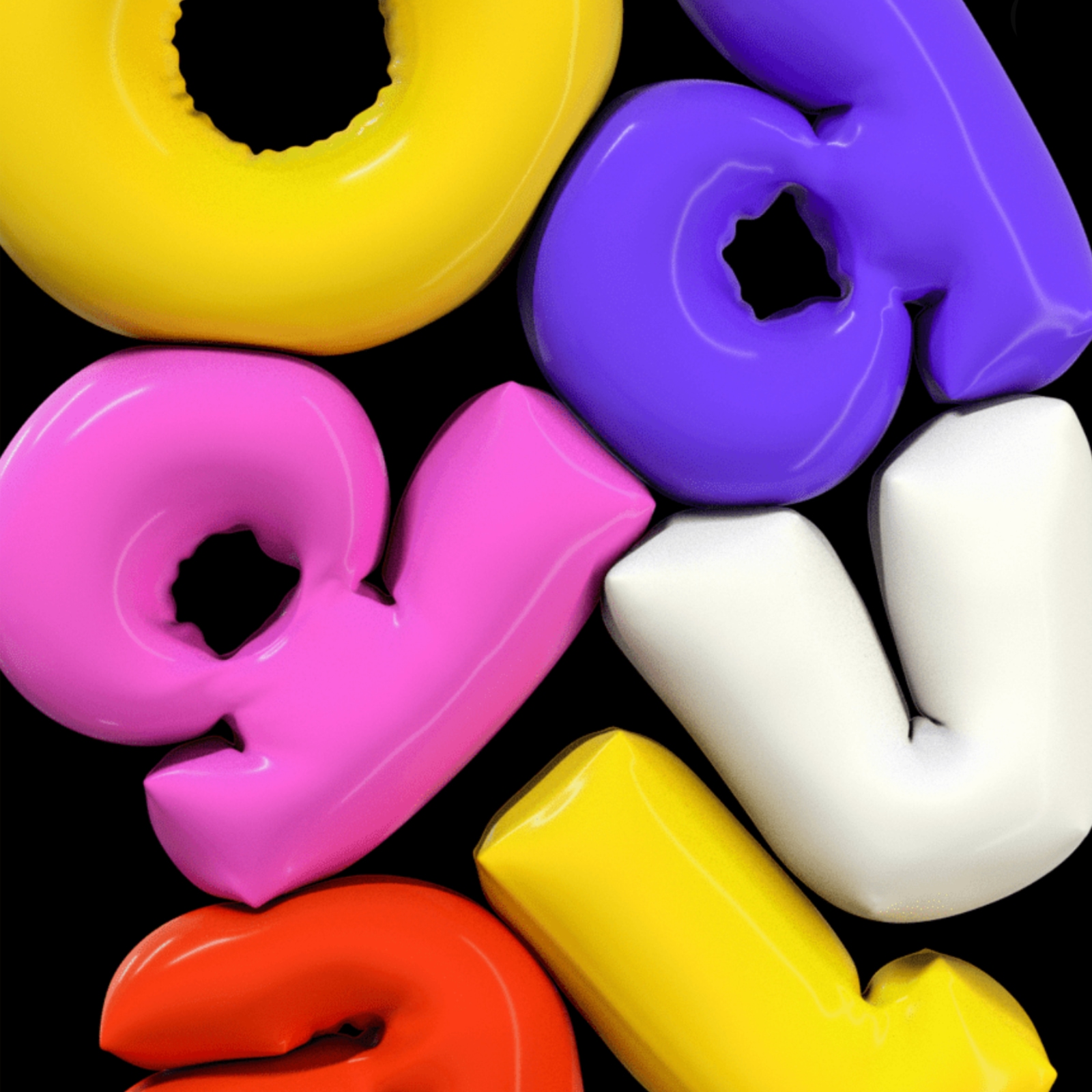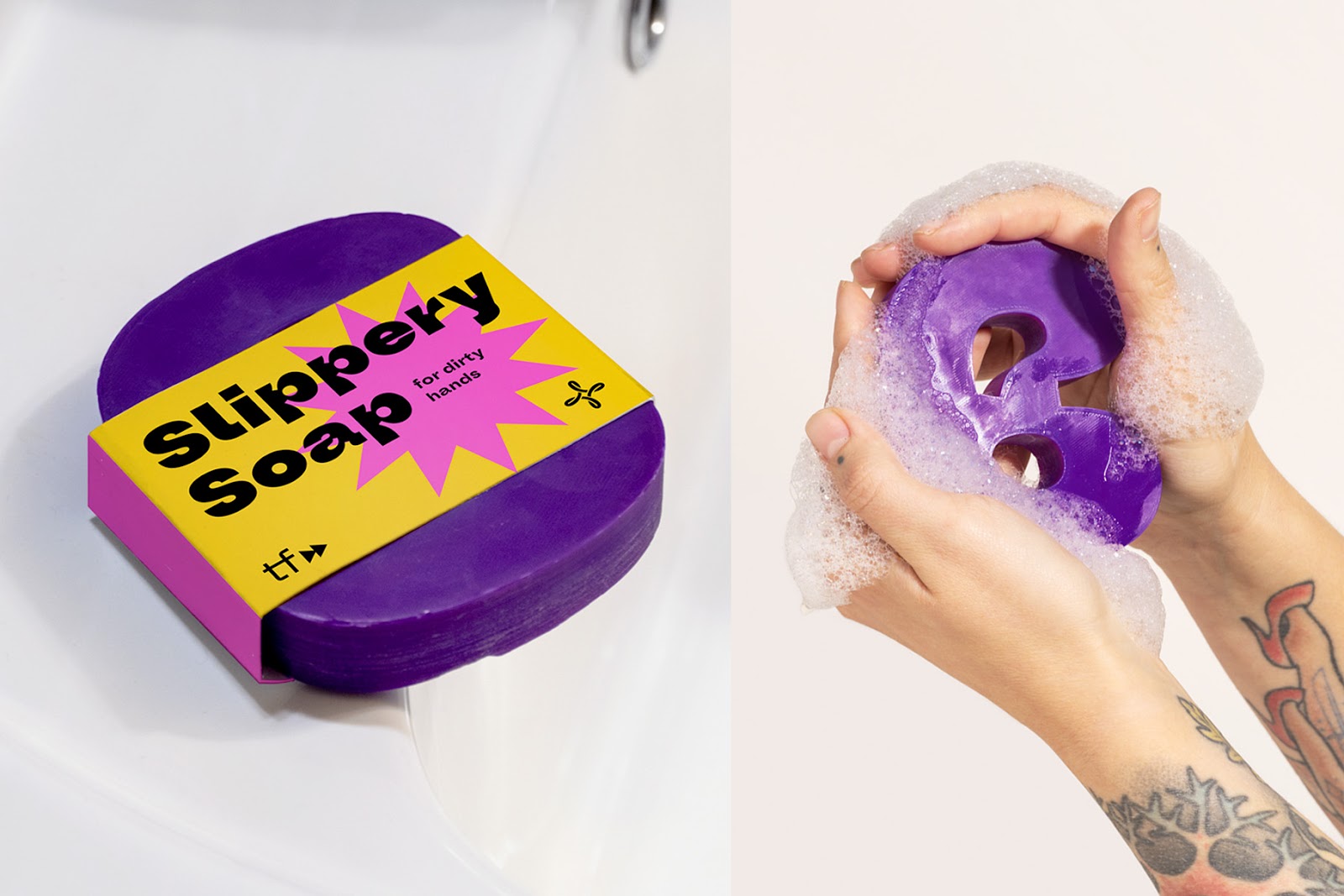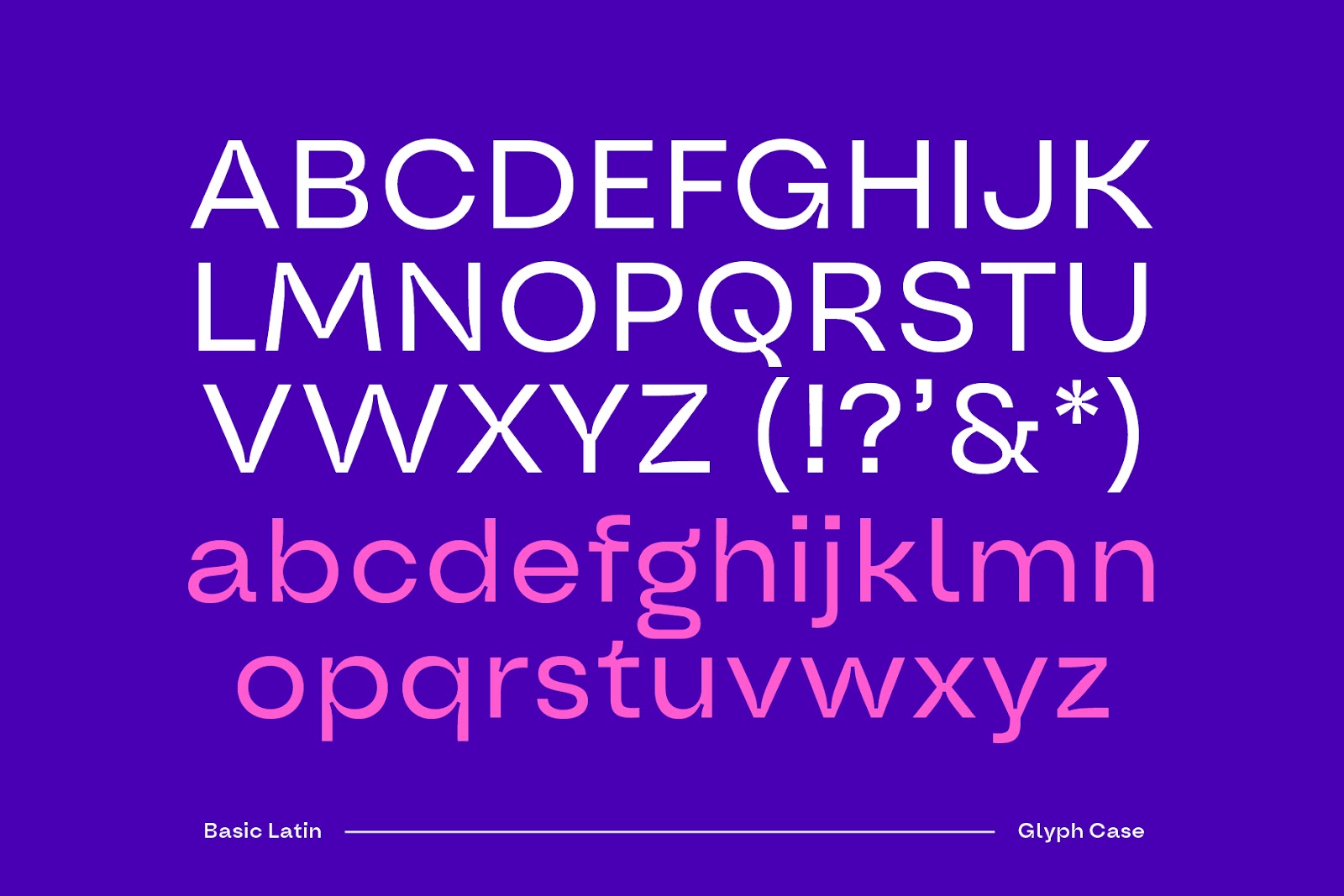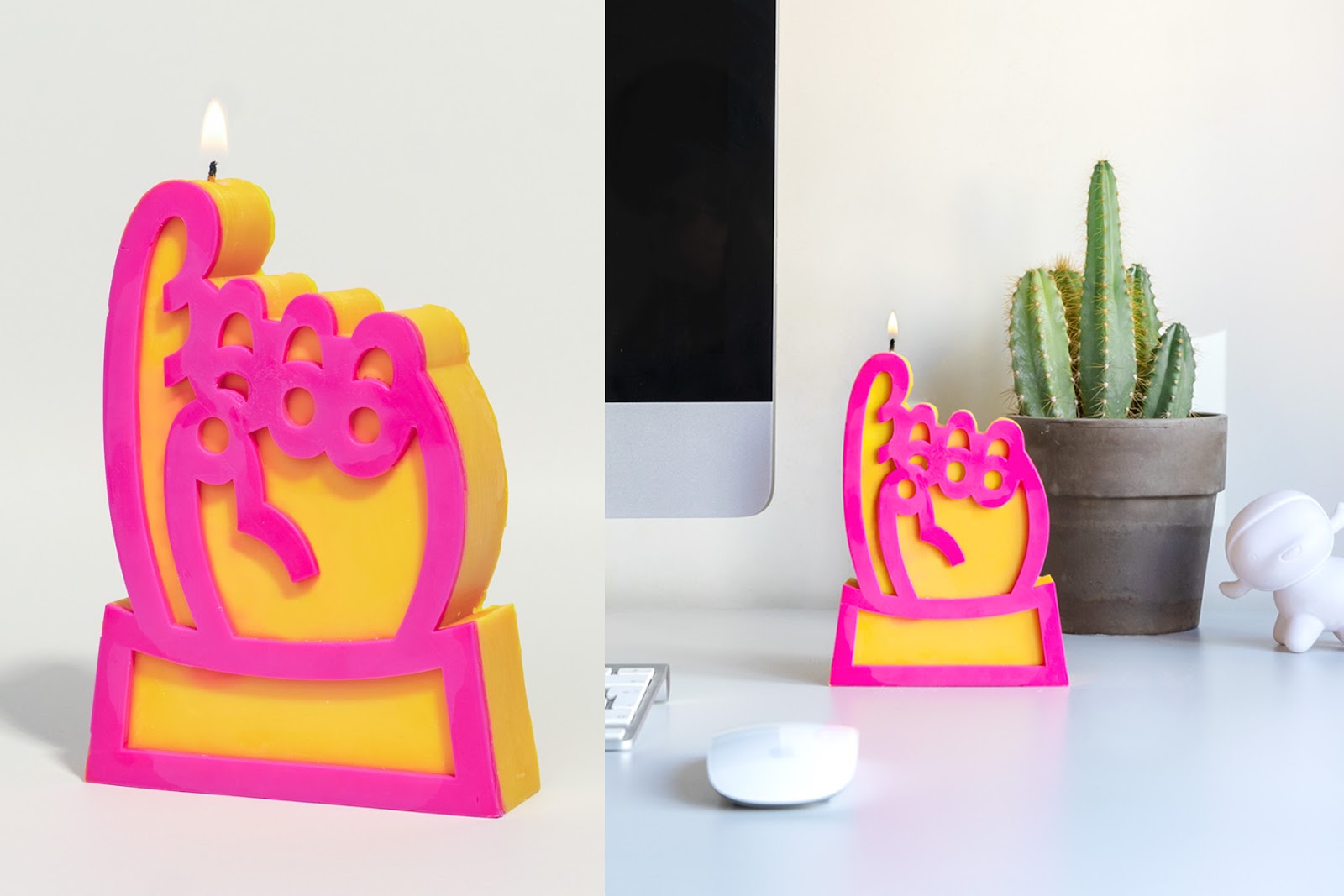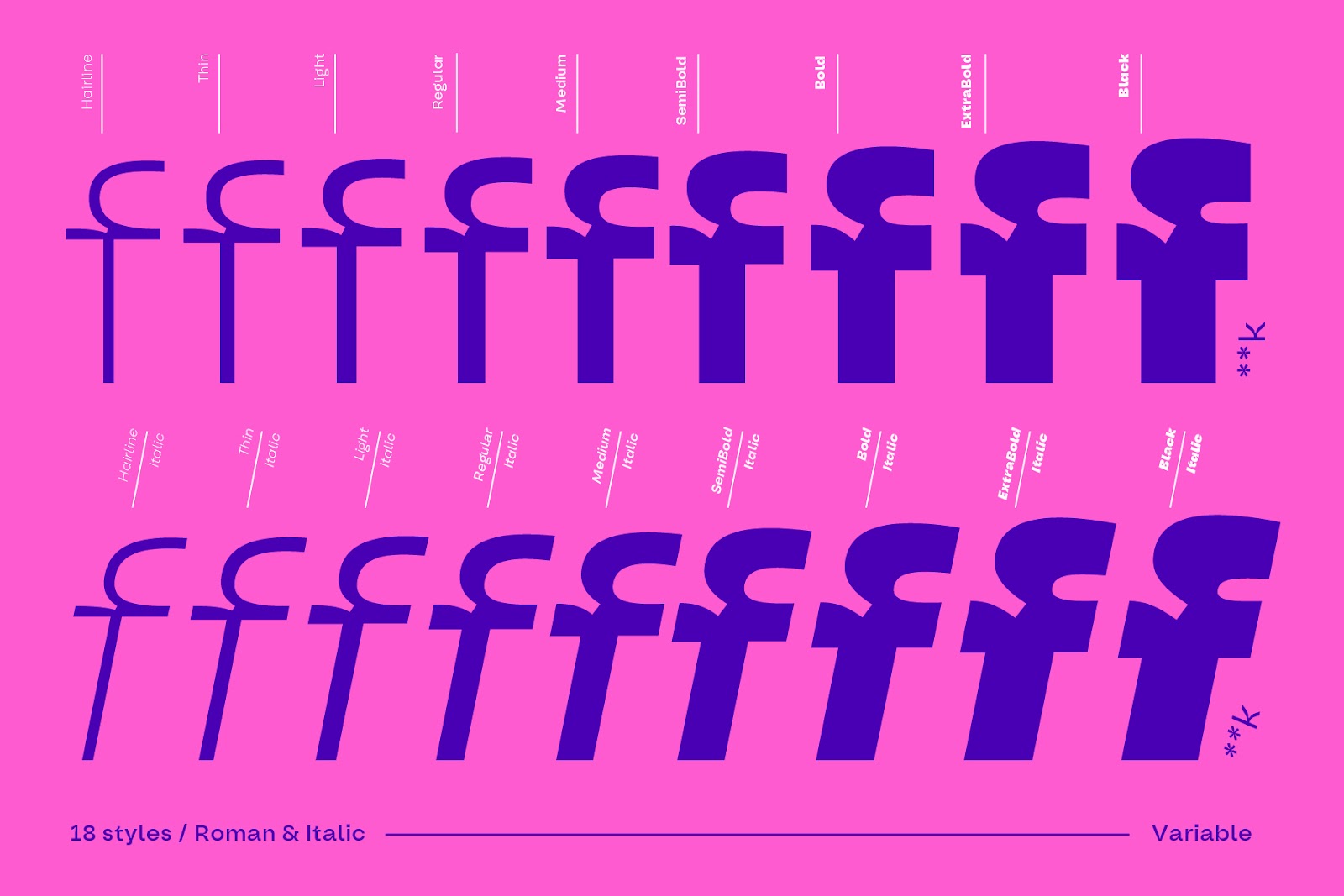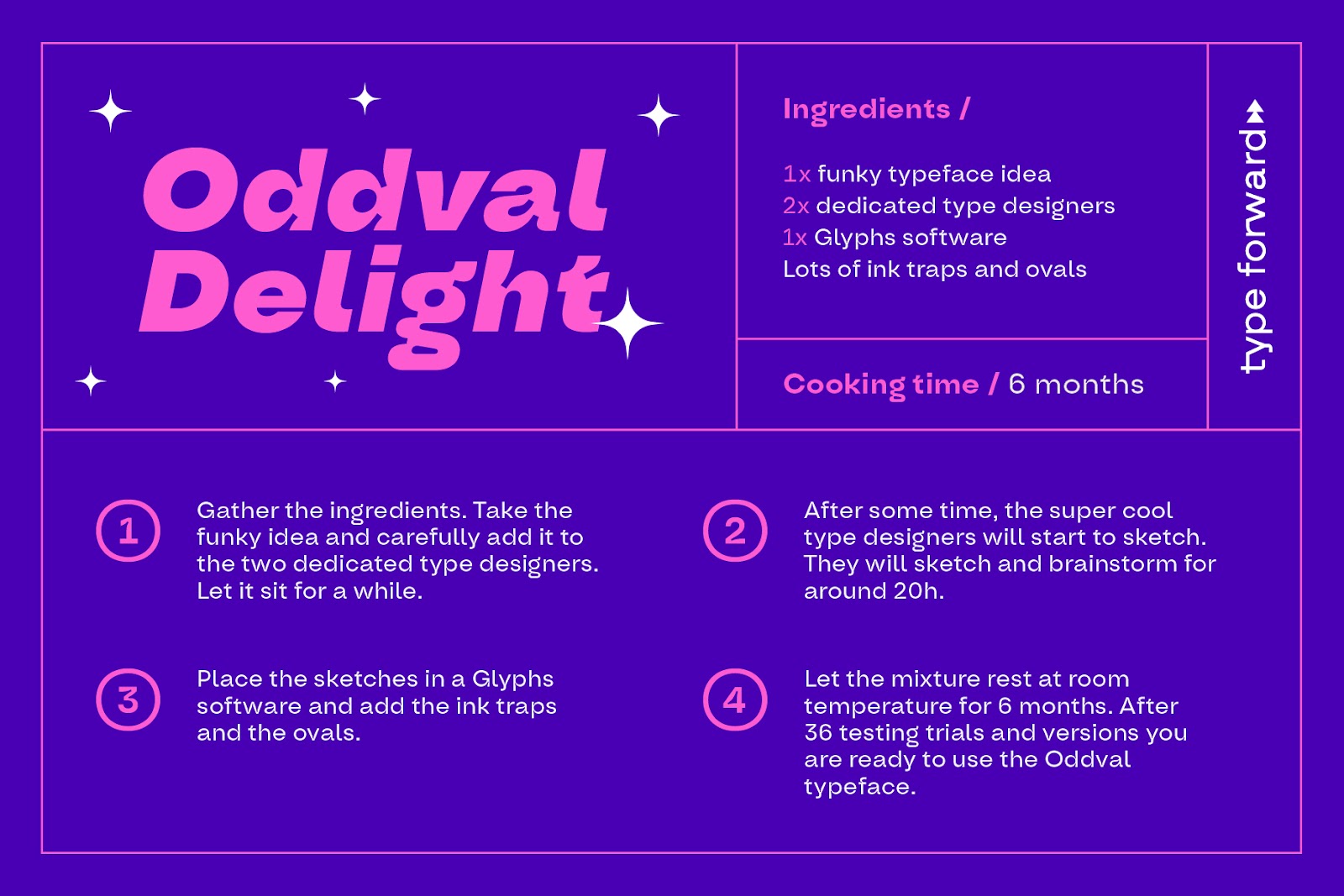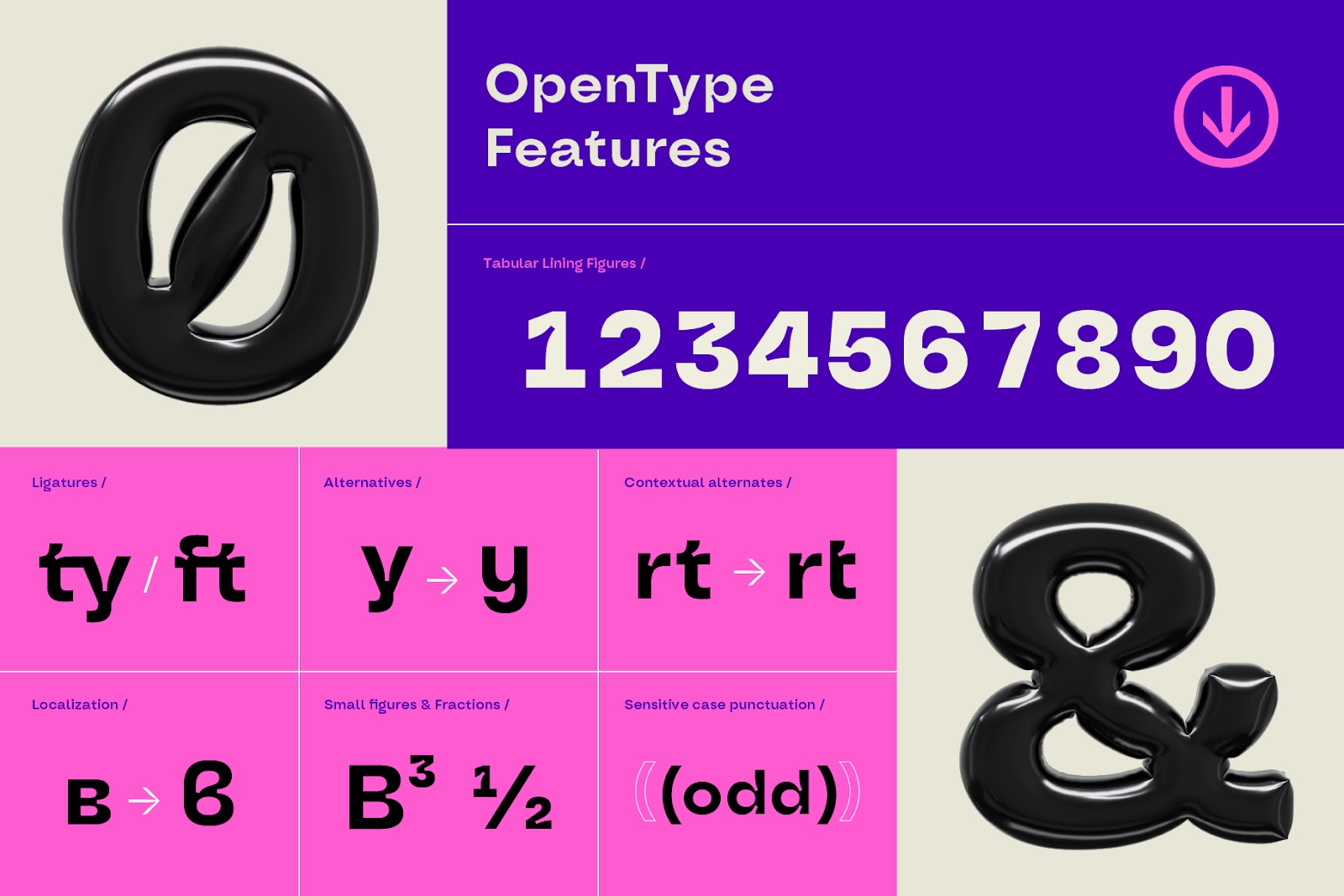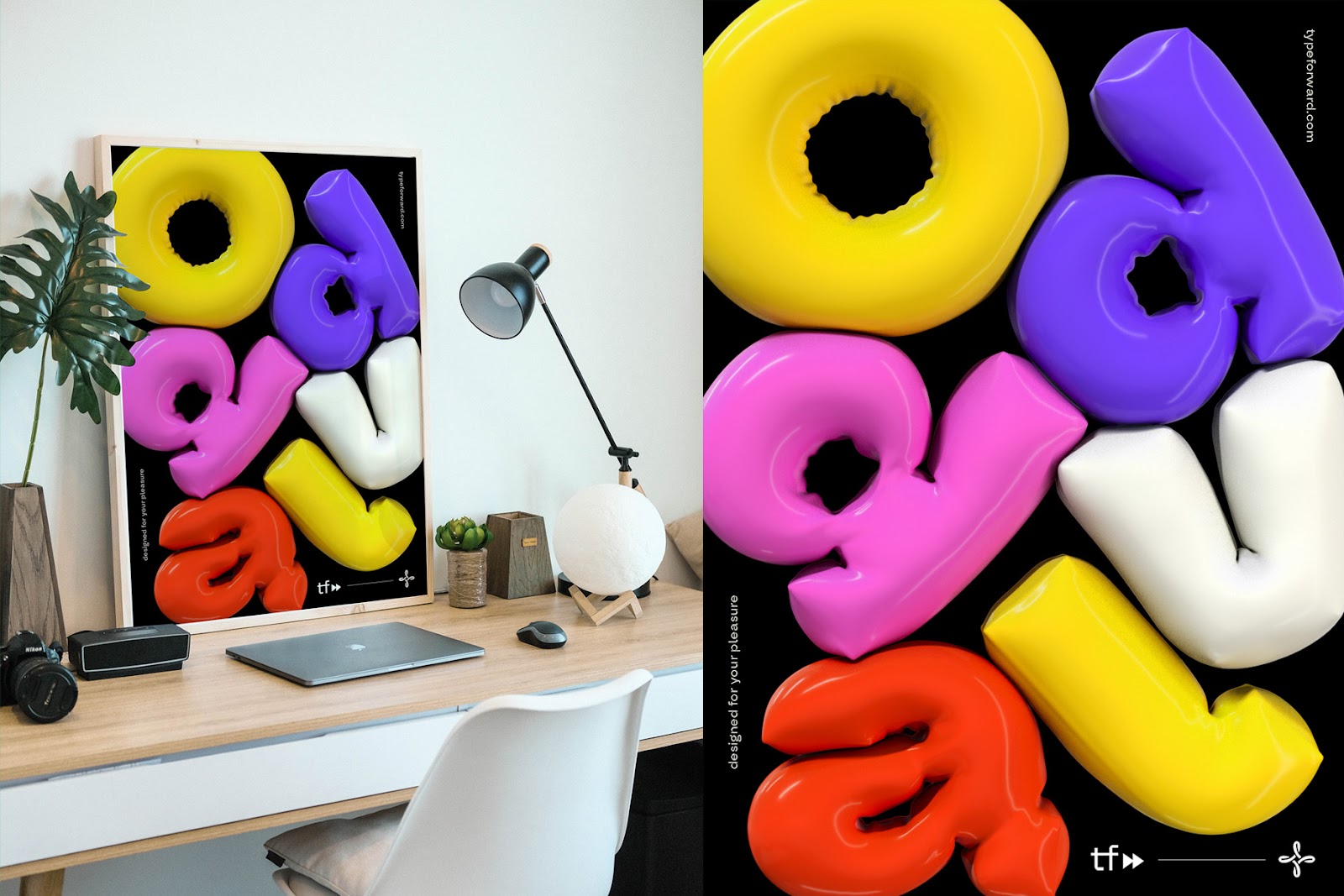
Oddval breaks away from the norm of traditional geometric sans-serif typeface mold, defying conventions to create a truly captivating font. The font's creators, Stan and Mirela of Type Forward, have infused it with a unique aesthetic appeal that makes it anything but boring. With distinct ink traps that create a one-of-a-kind oval shape for each letter, Oddval stands out from other fonts while remaining easily legible, even in small paragraphs of text.
Not only is Oddval visually striking, but it is also highly functional. It supports numerous languages, multiple weights, a variable font, and OpenType features, making it perfect for a variety of applications, particularly creative projects.
Aside from its unique aesthetic appeal, Oddval is also highly functional. It supports numerous languages, multiple weights, a variable font, and OpenType features. This typeface is perfect for various applications, especially for creative projects.
Additionally, FourPlus, a creative studio, played an integral role in presenting Oddval to the world. Through stunning visuals and a well-chosen name, they showcased the typeface's unique qualities and versatility, highlighting its potential for creative expression.
Oddval has a strong presence in the text due to its high x-height, minimal stroke contrast, and slightly wide oval shapes.
The Oddval type family includes 9 weights ranging from hairline to heavy, with corresponding Italics for a total of 18 fonts. These fonts are also available as a single variable font file, allowing you to create without limits.
The typeface is designed with extensive language support, including Extended Latin, Cyrillic, and Greek, covering over 220 languages. It also includes advanced typographic features, such as standard and discretionary ligatures, a stylistic set, contextual alternates, tabular and small figures, fractions, and language localizations.
Suitable for both print and on-screen media, Oddval is ideal for use in headlines and logotypes. It can also be set in short paragraphs to create a unique contemporary feel.